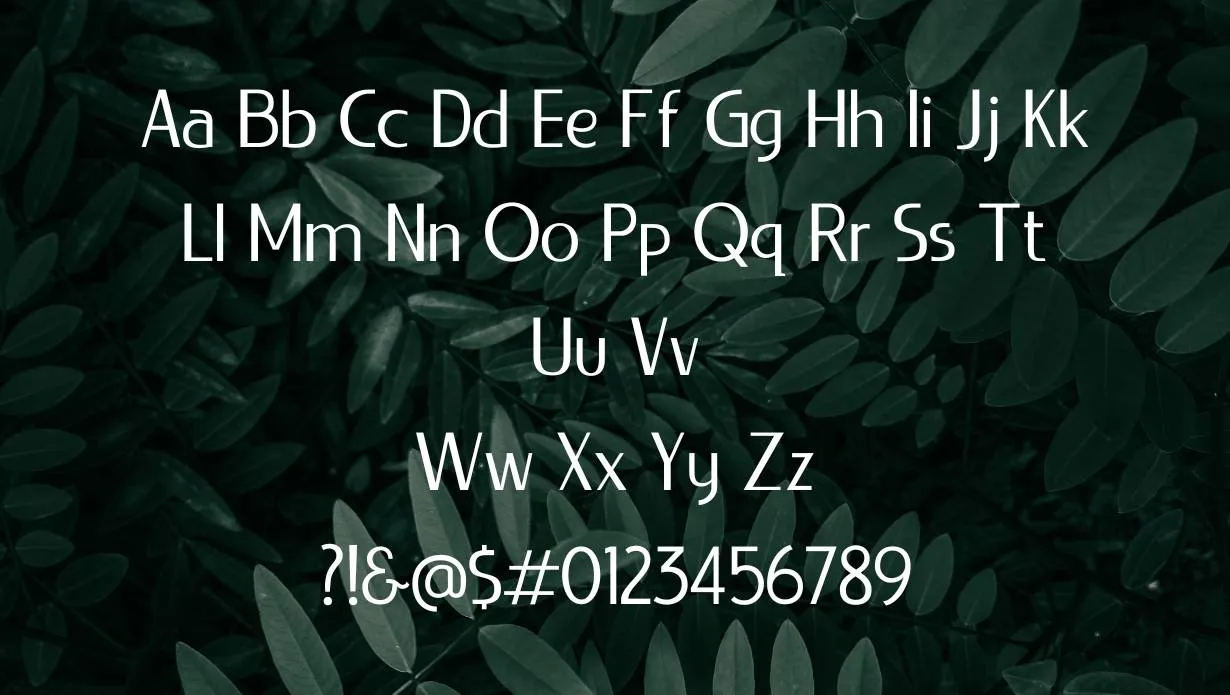
Lieur Font is an elegant and minimalist geometric Sans-Serif font that was created by Andi Winarno and published by InksTypia Studio along with a variety of styles.
If you want to make a design project more elegant and highly legible then try this font style with helvetica font and the results are just fantastic.